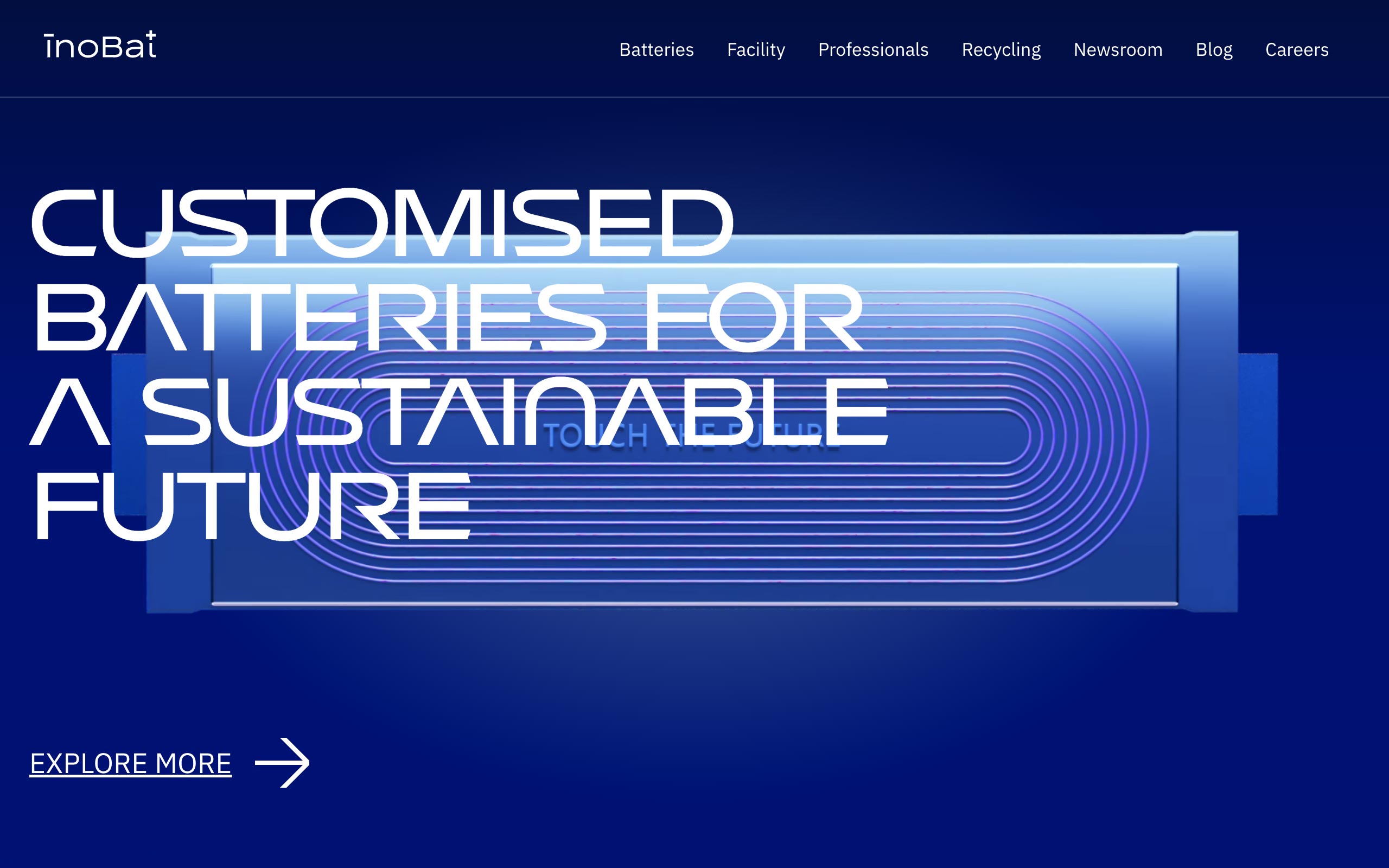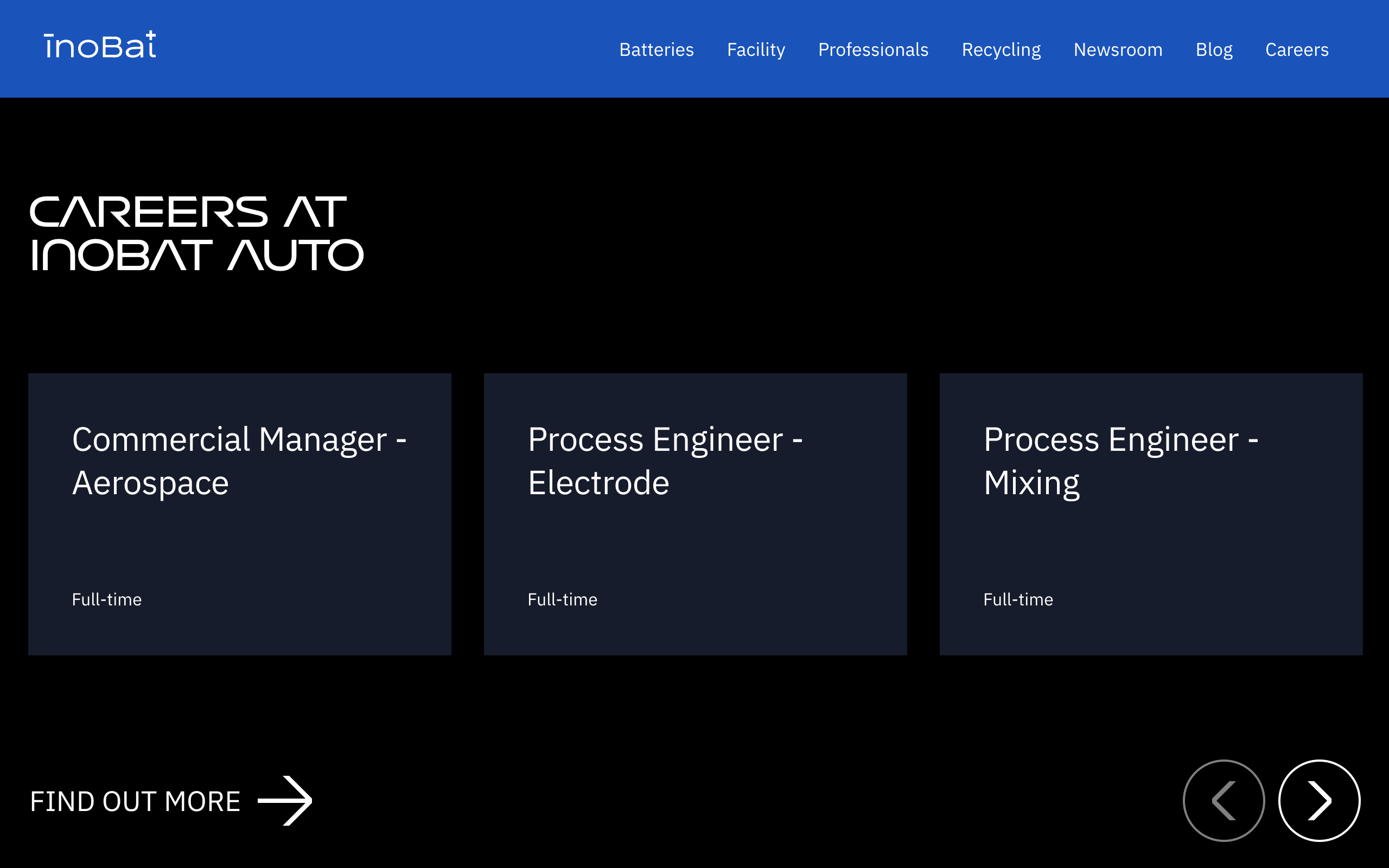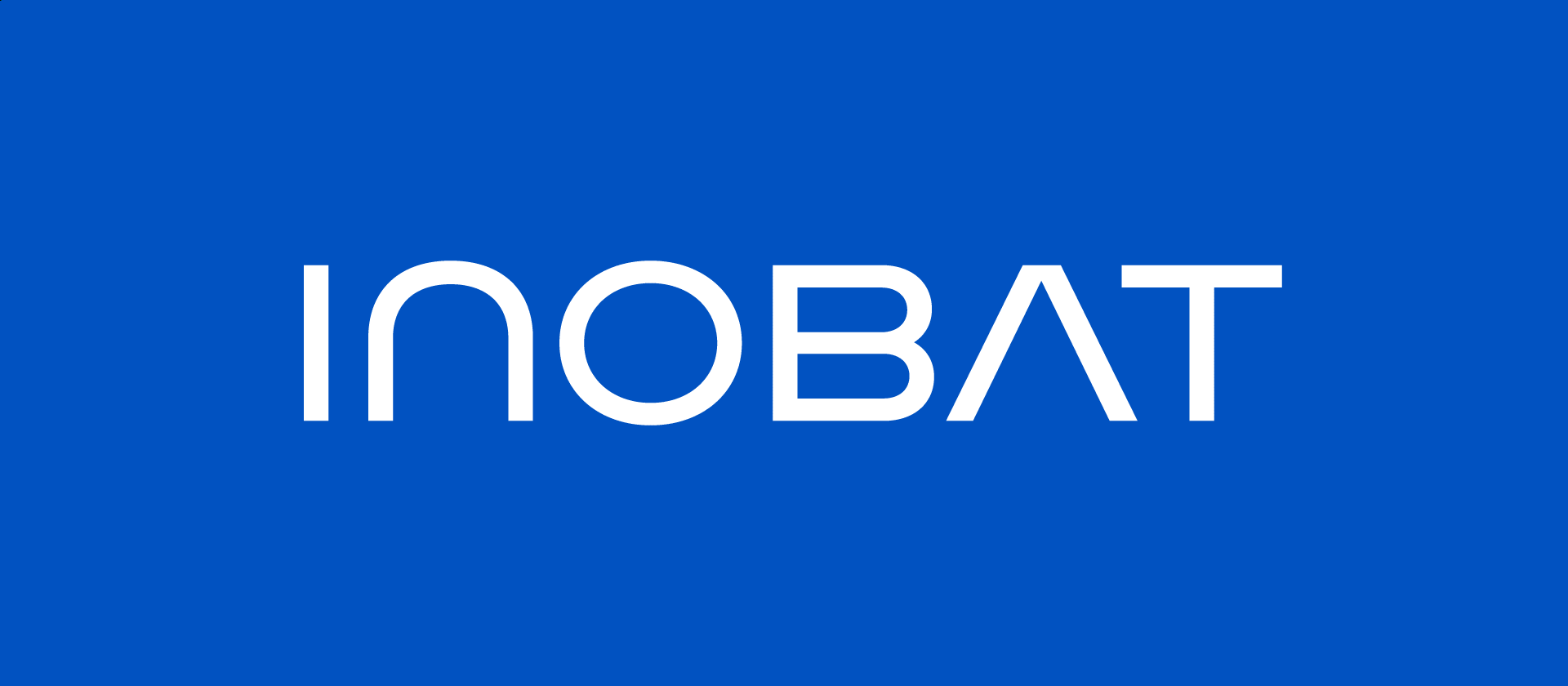
InoBat
InoBat typeface is a custom-made designed specifically for use in the visual identity of Slovak technology company InoBat, which specializes in the pioneering research, development, manufacture, and provision of premium innovative electric batteries custom-designed to meet the specific requirements of global mainstream and specialist OEMs within the automotive, commercial vehicle, motorsport, and aerospace sectors.
The capital-only sans-serif monolinear typeface has wide proportions and a futuristic character. The dominant elements are the unorthodox constructed letters A, N and the open construction of the letters P, R.